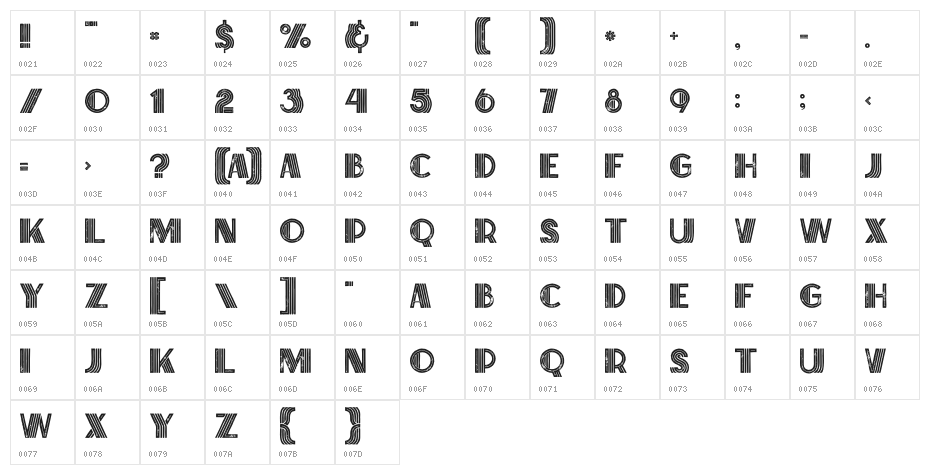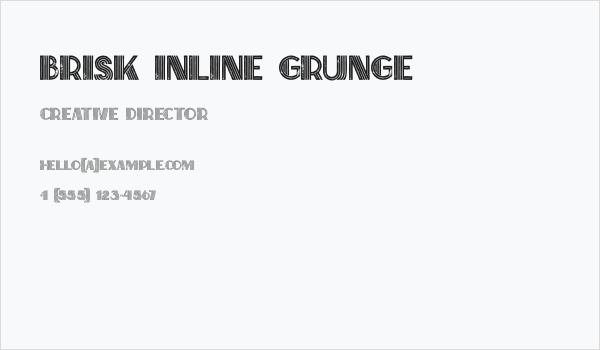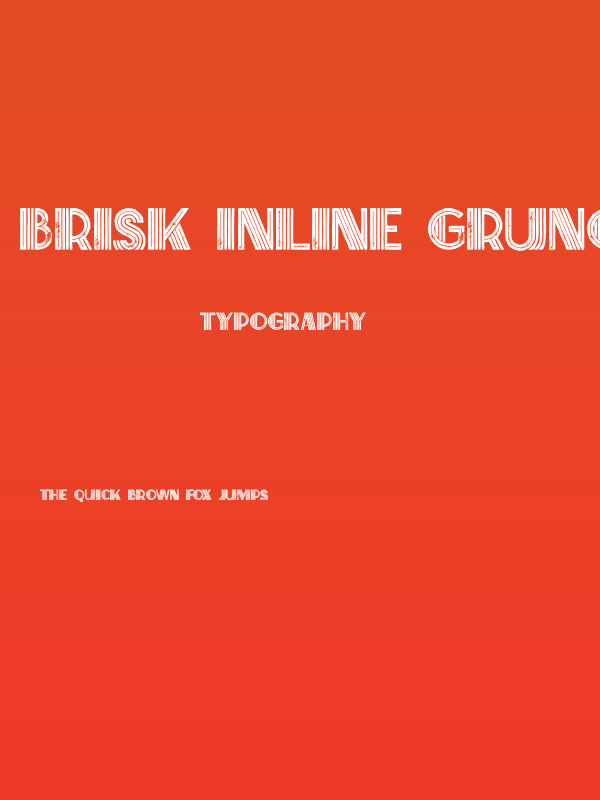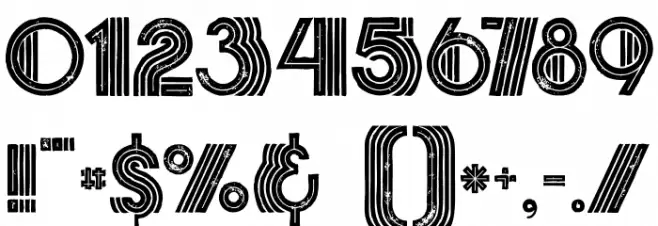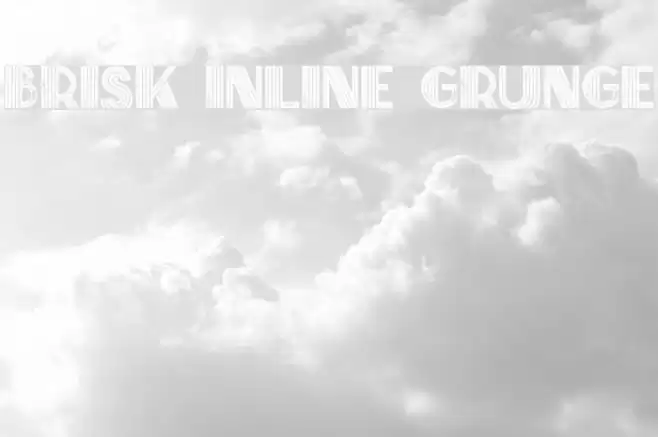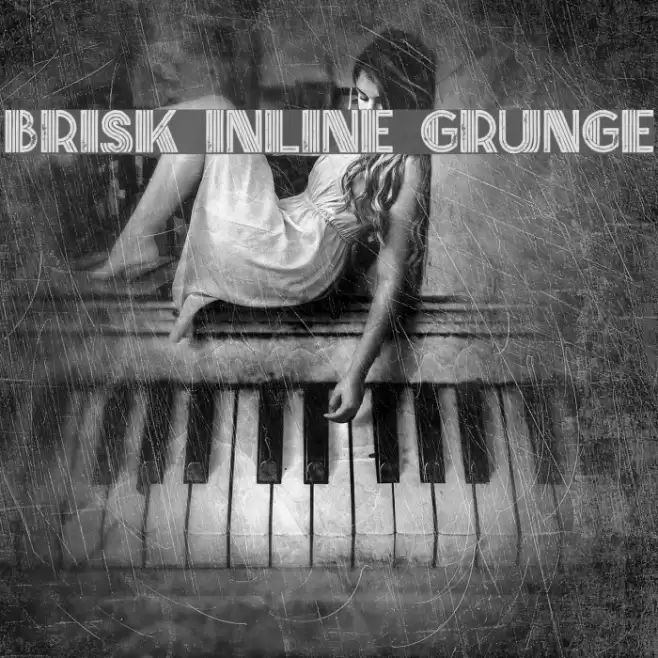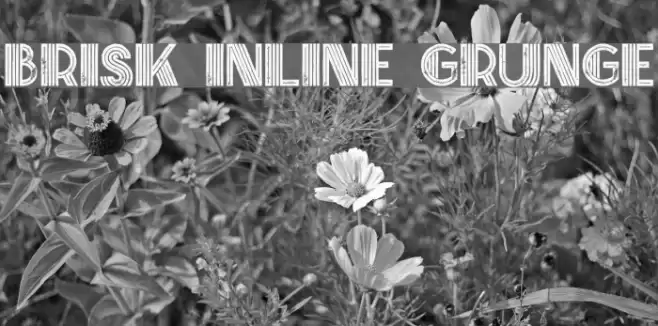
Brisk Inline Grunge Font
Brisk Inline Grunge Description
This font features a bold, decorative style with a grunge aesthetic. Each character is designed with inline detailing, giving it a layered and textured appearance. The letters are uppercase with a consistent width and height, creating a uniform look. The numbers and special characters follow the same design principles, ensuring cohesion across all elements. The distressed effect adds a vintage and edgy feel, making it suitable for projects that require a bold statement. The font's unique style is eye-catching and can be used to draw attention in various design contexts.
| Overall Style | Vintage, Decorative |
| Proposed Projects | Ideal for posters, album covers, branding, and any design needing a bold, vintage touch. |